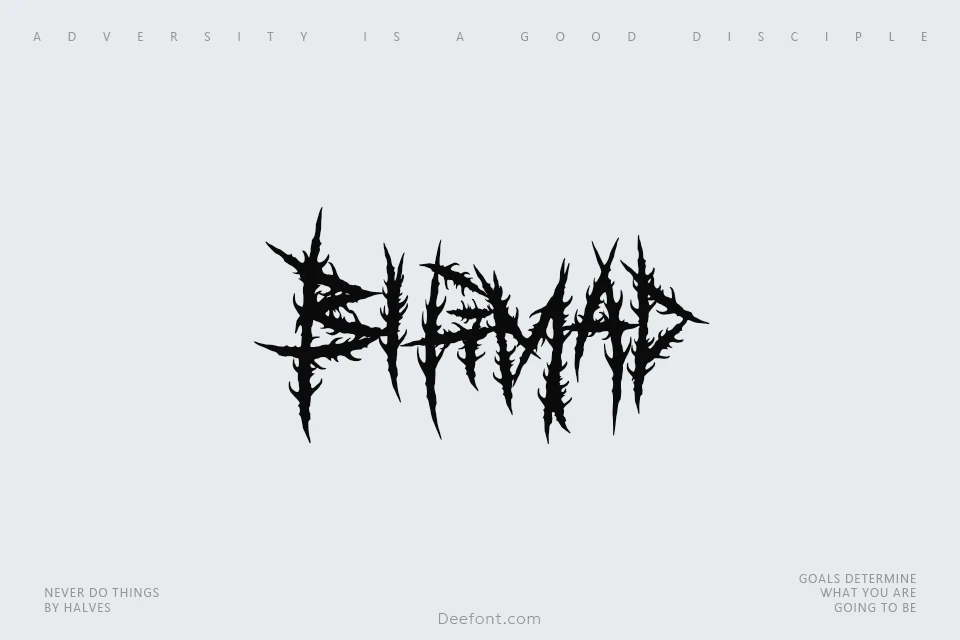
Bigmad Font
Bigmad Font is an intense death metal font, featuring both uppercase and lowercase characters. Its aggressive style makes it perfect for gore, metal, and brutal design themes. Bigmad is ideal for logos, band branding, merchandise, clothing, and movie titles or posters. Its bold, edgy aesthetic adds a powerful touch to any project, making it a great choice for those seeking a strong visual impact. Whether used in digital or print media, Bigmad’s dark, metallic vibe elevates designs with its raw energy, ensuring your brand or project stands out in the music and entertainment industries.